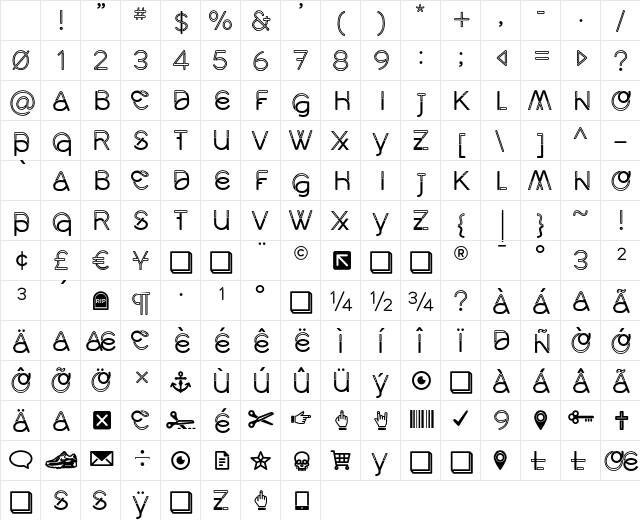
Complete Middlecase Regular Inline glyph index. Displaying only characters natively supported by Middlecase Regular Inline font.
Middlecase is built around its visual character rather than neutral utility - its distinctive forms are designed to make an impression at display sizes.
Font Pairing: Pair with a clean neutral sans-serif for body copy to let Middlecase's character lead without overwhelming the composition.
Pro Tip: Use Middlecase exclusively at display sizes - it was designed to be seen, not read at length. Let a neutral companion handle body copy.